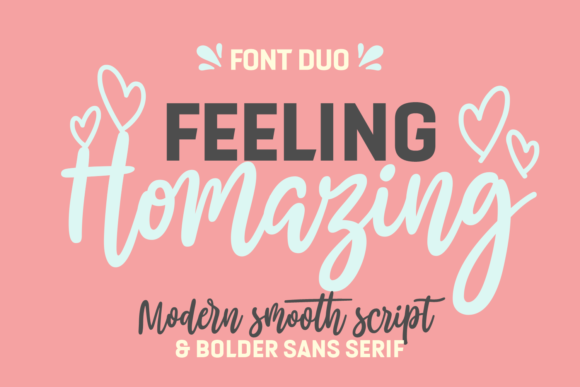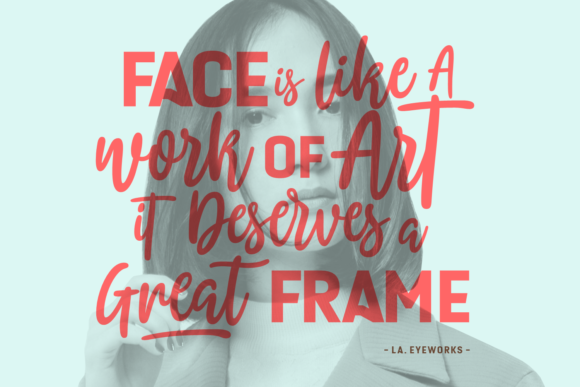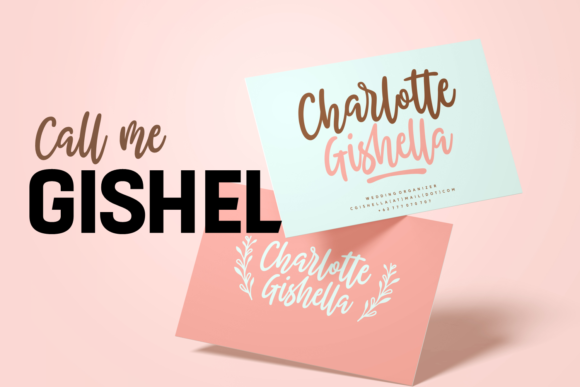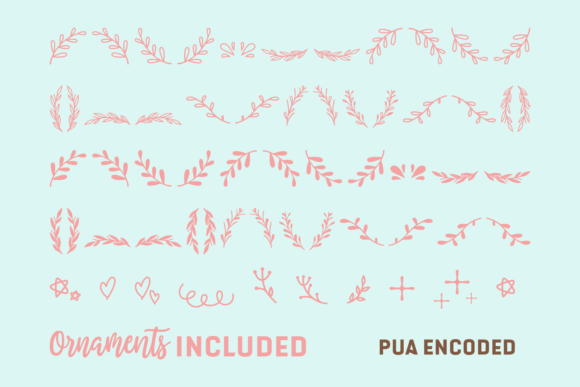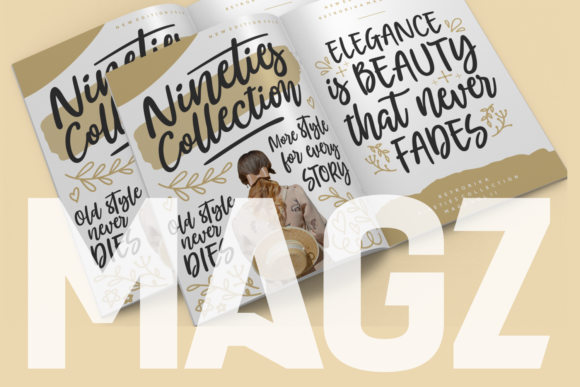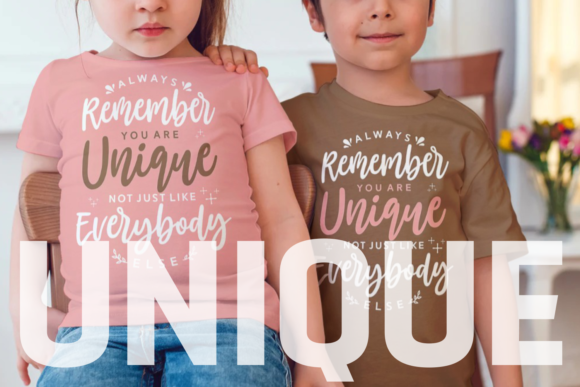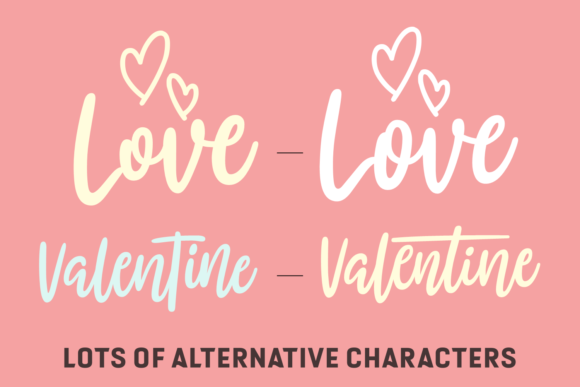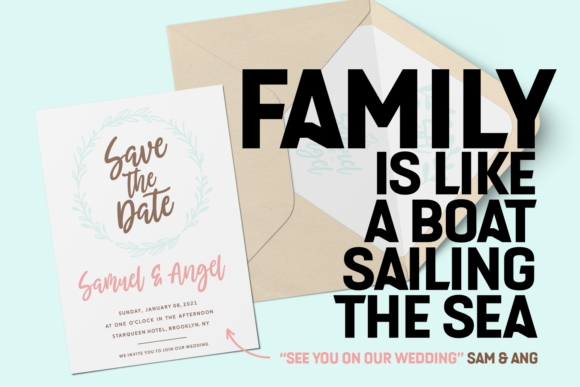
Feeling Homazing Font
About Feeling Homazing Font
Feeling Homazing is a modern smooth script font perfectly suited for many projects. This font deserves to be in your design!